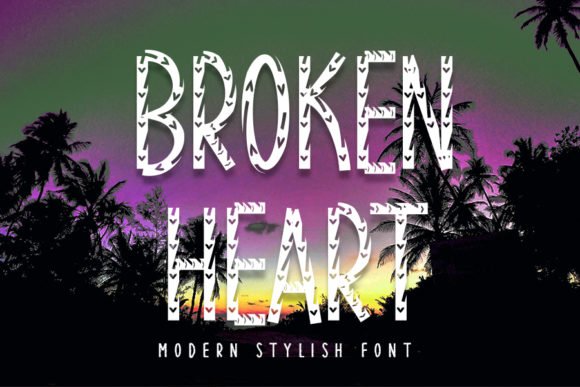
One such tool is the Broken Heart Font, a playful and whimsical decorative font that adds a touch of personality to any project. Whether it’s an inspirational wall poster or a branding campaign, this font brings a sense of fun and approachability that’s hard to resist. For designers, the Broken Heart Font is a valuable asset, offering a unique way to express their creativity and connect with their audience.
Broken Heart Font Key Features
- Font Family: Broken Heart Font is a unique, hand-drawn font designed to convey a sense of emotional depth and complexity.
- Font Size: The font comes in a range of sizes, from 8pt to 120pt, making it suitable for various applications, including body text, headlines, and titles.
- Resolution: The font is designed to be scalable and vector-based, ensuring crisp and clear rendering at high resolutions (up to 300 DPI).
- Unique Characteristics: Broken Heart Font features intricate, hand-crafted details and subtle texture, giving it a distinctive, emotive feel.
Designer Review: Broken Heart Font
Overall, I’d say the Broken Heart Font has some great qualities, but also some areas where it falls short. ✨ Let’s start with what works well:
- Unique and emotive design: The Broken Heart Font is undeniably attention-grabbing, making it perfect for titles or headings that need to convey a sense of sadness or longing.
- Good for creative projects: This font would be great for artists, writers, or designers who want to add a touch of melancholy to their work.
- Well-suited for digital use: The Broken Heart Font looks great on screens, making it a good choice for digital projects like websites, social media, or e-books.
- Limited legibility: In smaller sizes, the font can become difficult to read due to its complex design.
- Not suitable for body text: The Broken Heart Font is too ornate and attention-grabbing for regular body text, which can make it hard to read.
- May not be suitable for commercial use: Depending on the context, the font’s emotional tone may not be suitable for commercial or corporate projects.
Overall, I think the Broken Heart Font is a great choice for designers who want to add a touch of emotional depth to their work. However, it’s not a one-size-fits-all solution, and it’s essential to consider the context and purpose of the project before using this font.
The Broken Heart Font is ideal for creating romantic, melancholic, or whimsical designs. Use it for:
- Valentine’s Day cards and invitations
- Breakup or apology messages
- Whimsical illustrations and graphics
- Use it in moderation to avoid overwhelming the design
- Pair it with complementary fonts to create a balanced look
- Experiment with different colors and effects to add depth and emotion
Alternatives to Broken Heart Font
Heartland Font
Heartland Font is a modern, elegant script font that conveys a sense of love and romance. It is ideal for wedding invitations, valentines, and other occasions where a touch of whimsy is needed. Compared to Broken Heart Font, Heartland Font is more refined and less distressed, making it a great choice for designers who want to add a touch of sophistication to their designs.
Love Story Font
Love Story Font is a beautiful, handwritten font that is perfect for telling love stories. It features flowing lines and a romantic feel that is sure to capture the hearts of readers. Compared to Broken Heart Font, Love Story Font is more expressive and emotive, making it a great choice for designers who want to convey a sense of passion and emotion.